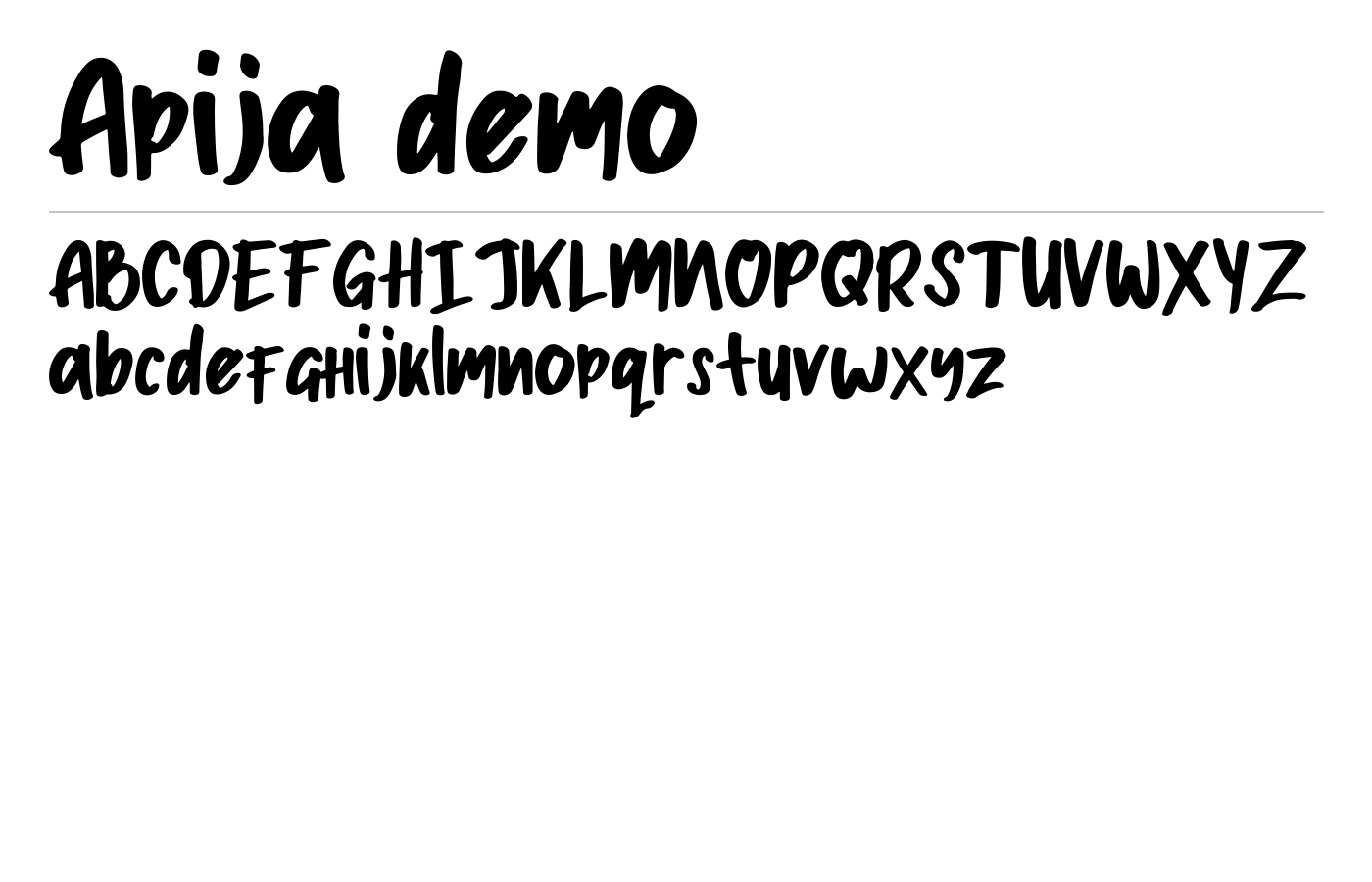
Apija demo is a bold, playful handwritten sans serif font with a casual, friendly vibe. Its rounded, slightly irregular letterforms and medium x-height give it an approachable and lively personality, perfect for designs that want to feel personal and inviting. This font works well for informal branding, kids’ products, packaging, and any creative project that benefits from a warm, human touch.
Apija demo Font
About Apija demo Font